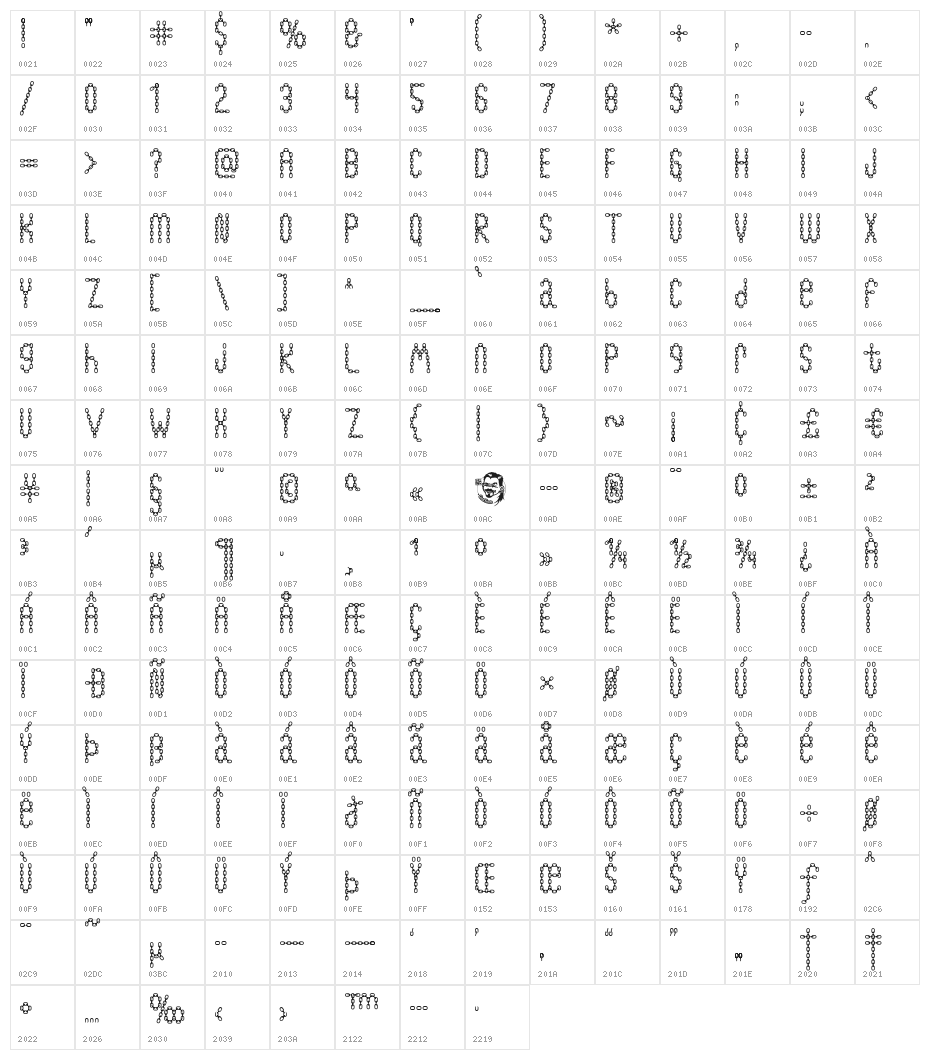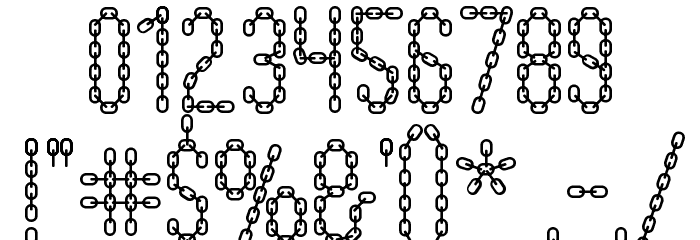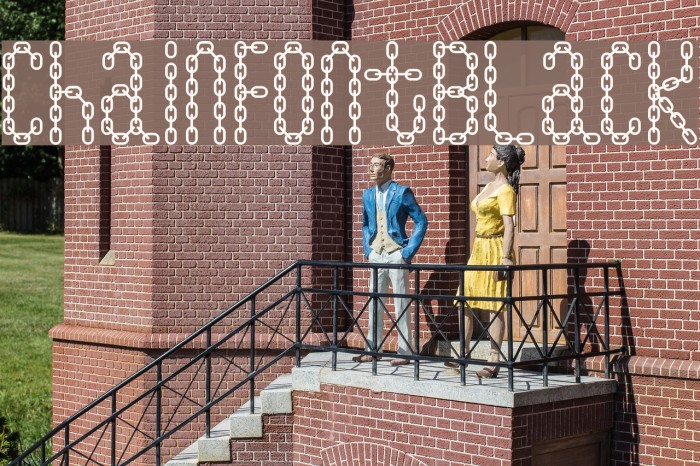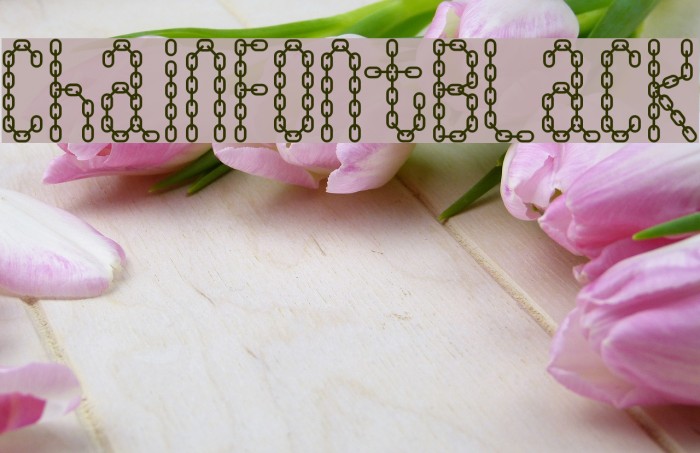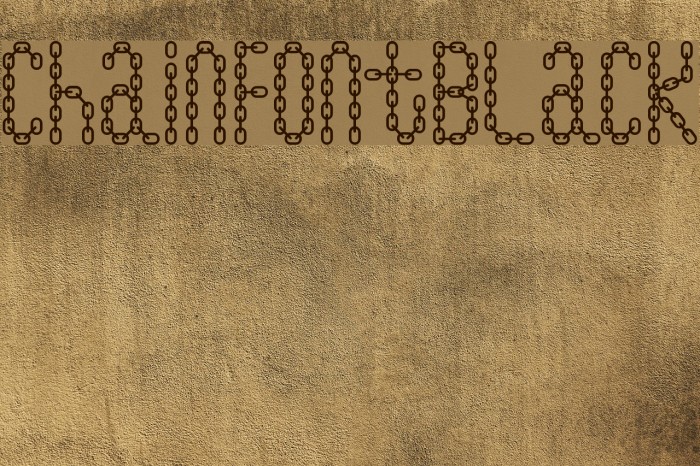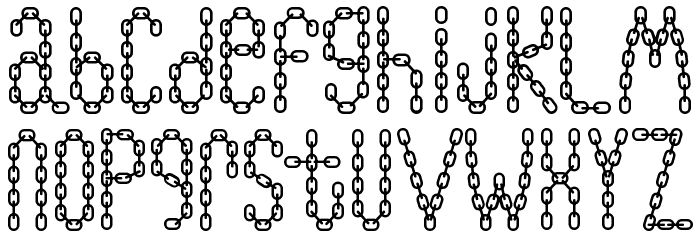
ChainFontBlack Font
ChainFontBlack Description
This font features a unique design where each character is constructed from a series of interconnected chain links. The letters and numbers are formed with a consistent pattern of links, creating a cohesive and visually striking appearance. The style is bold and decorative, making it stand out with its intricate detailing. Each character maintains a uniform width, contributing to a balanced and structured look. The font's playful yet industrial aesthetic makes it suitable for creative and themed projects. Despite its decorative nature, the characters remain legible and distinct, ensuring readability.
| Use Case | Logos, Posters, Themed Events |
| Proposed Projects | Ideal for themed posters, logos, or branding that requires a bold, industrial aesthetic. |